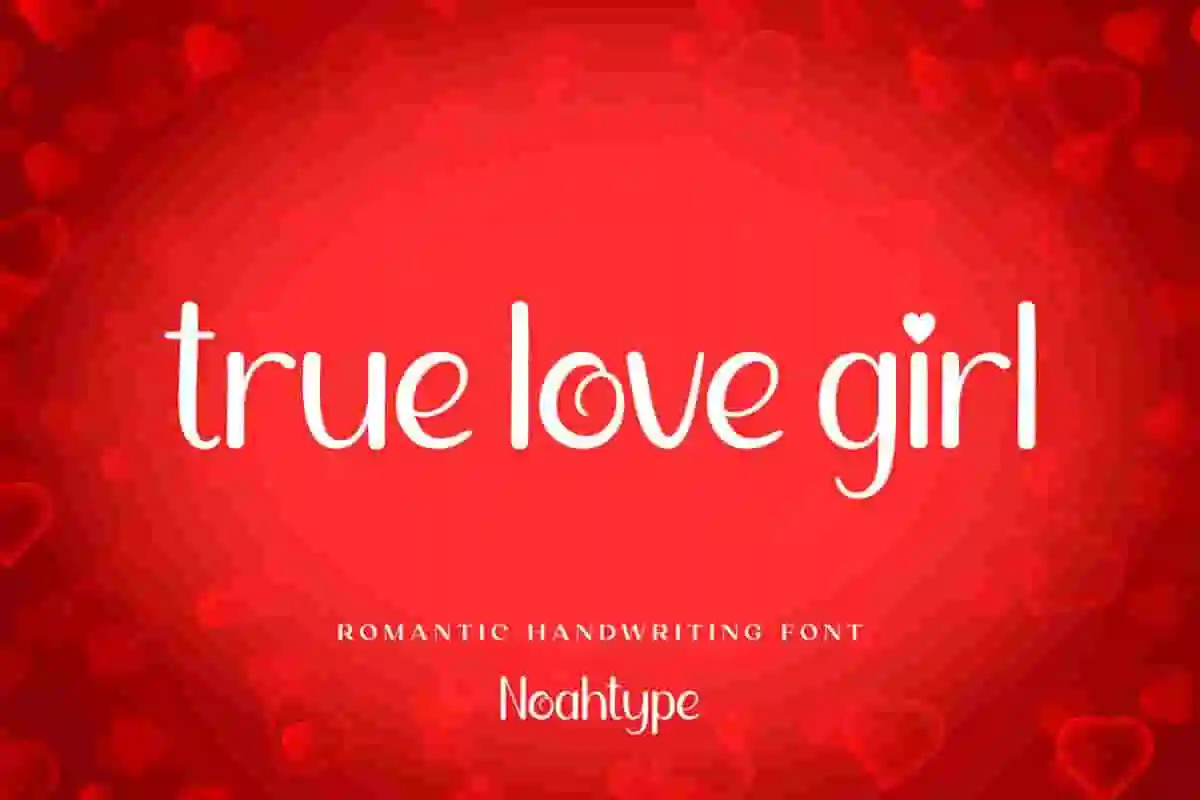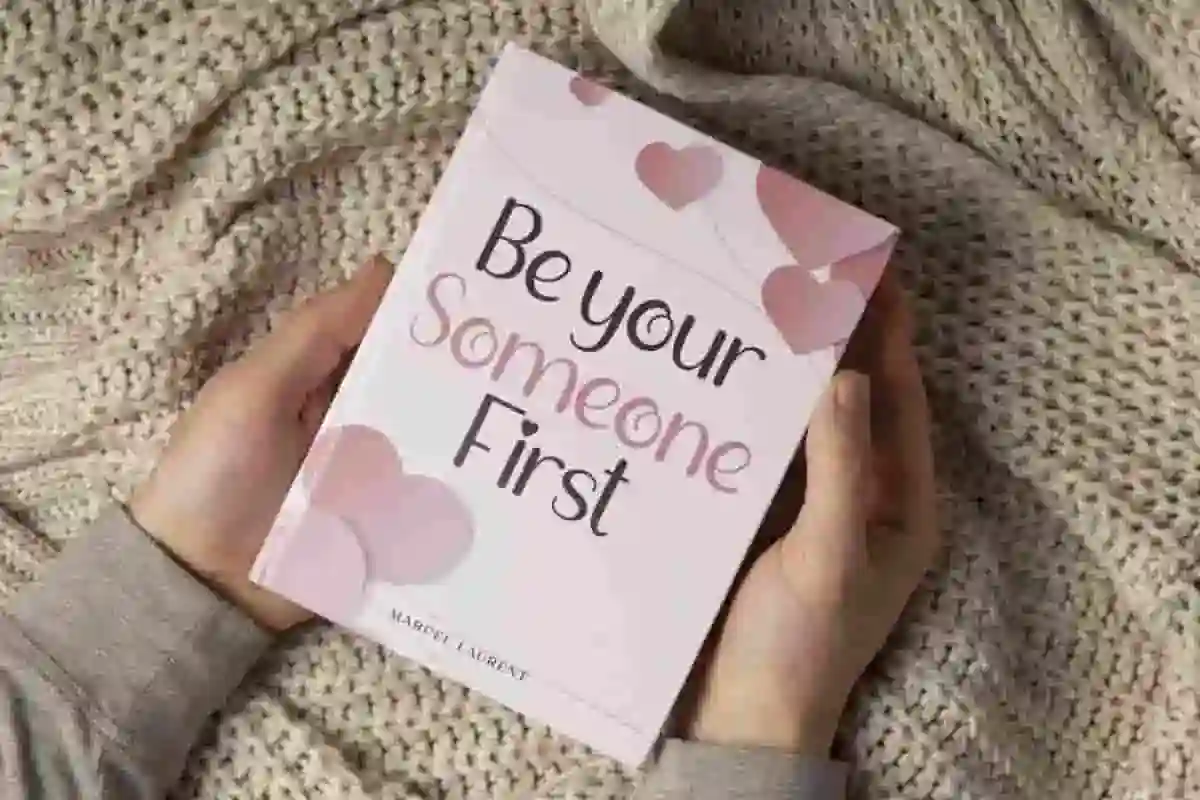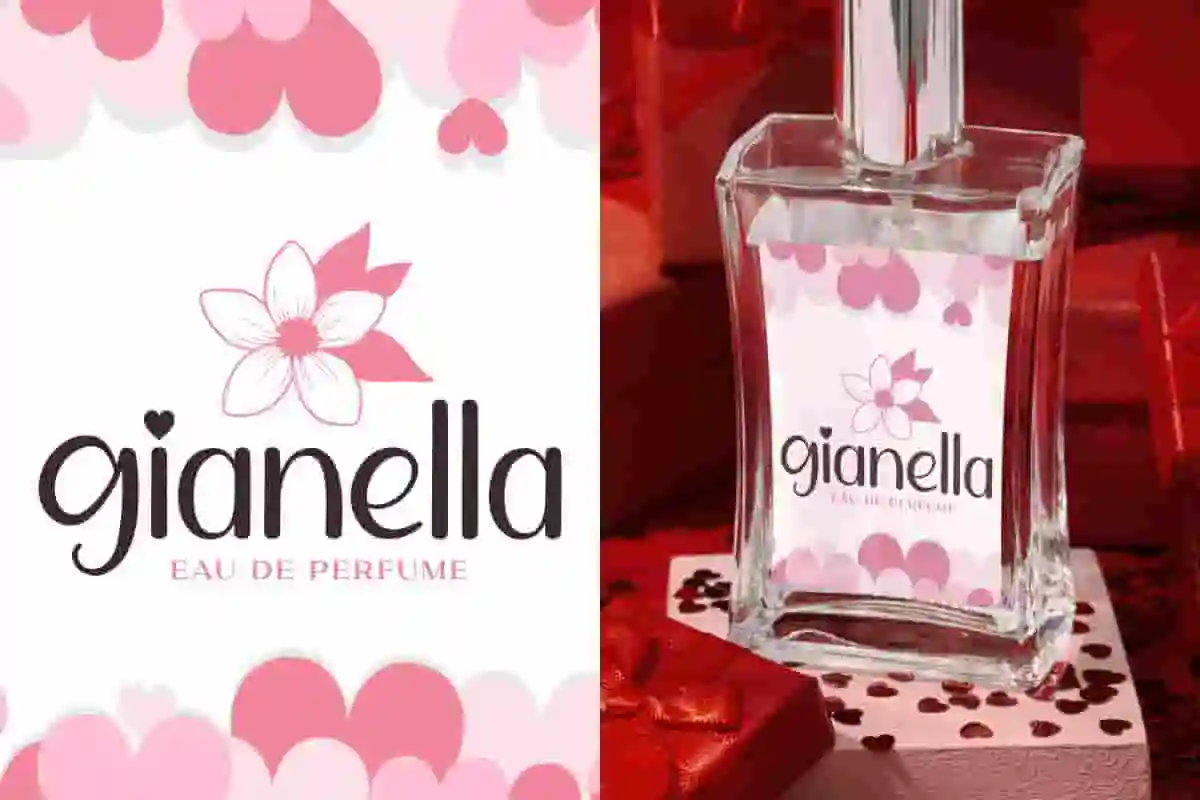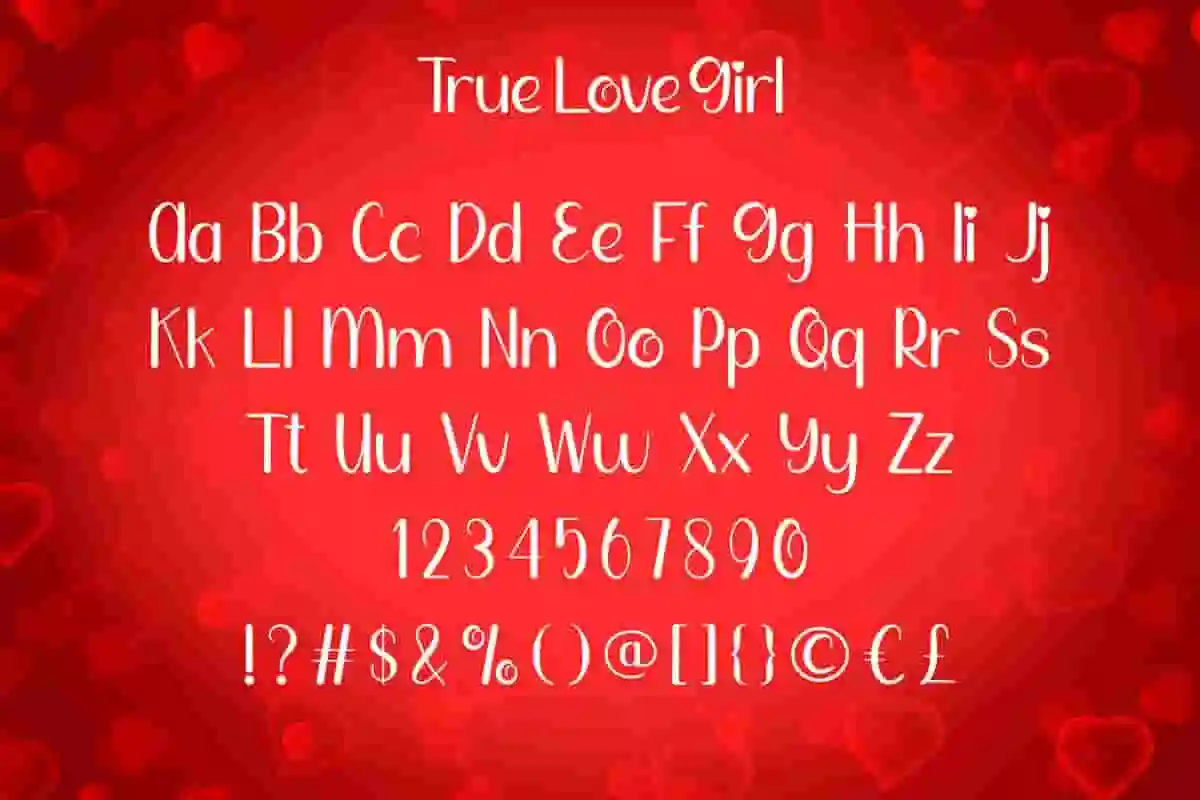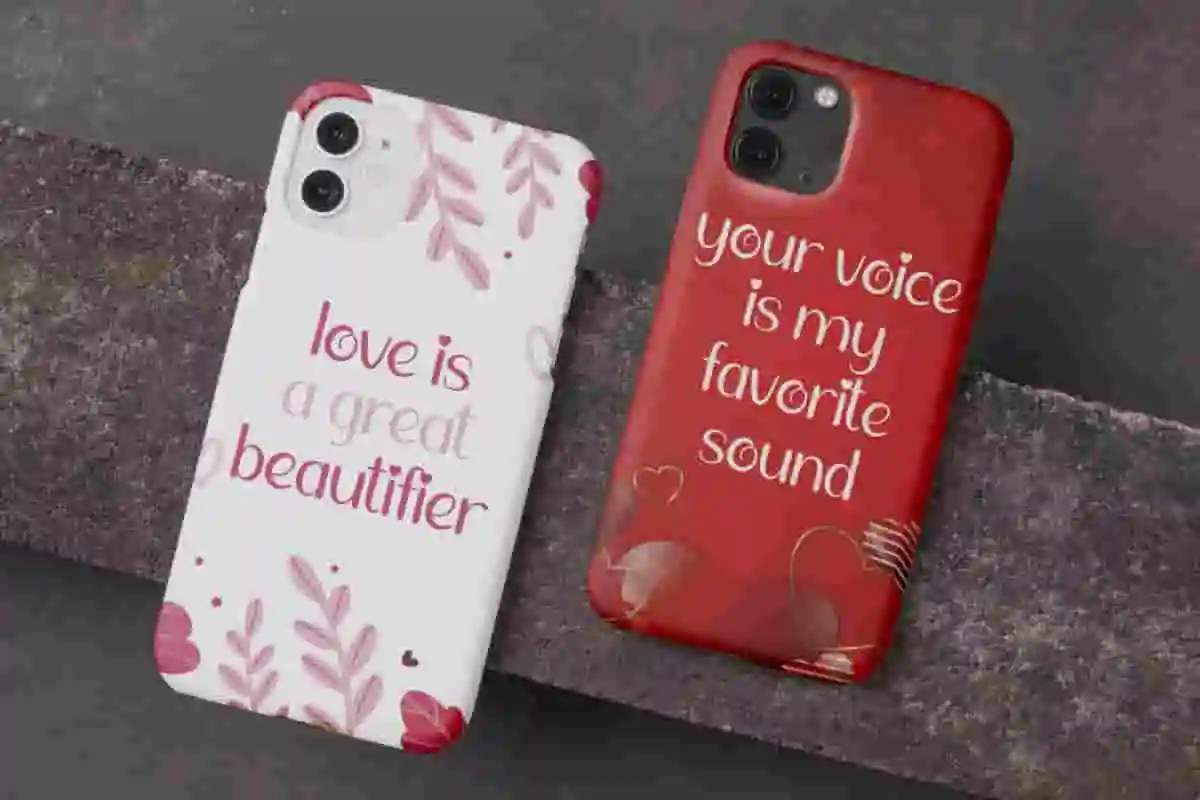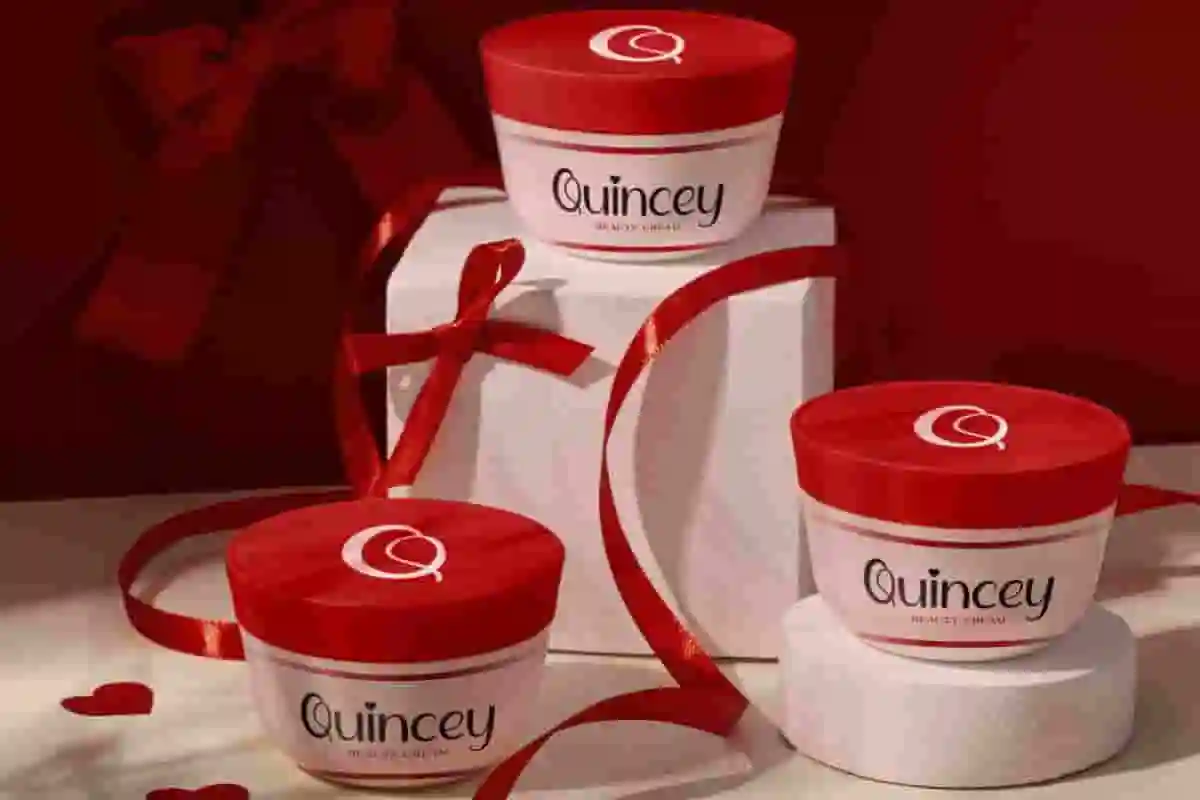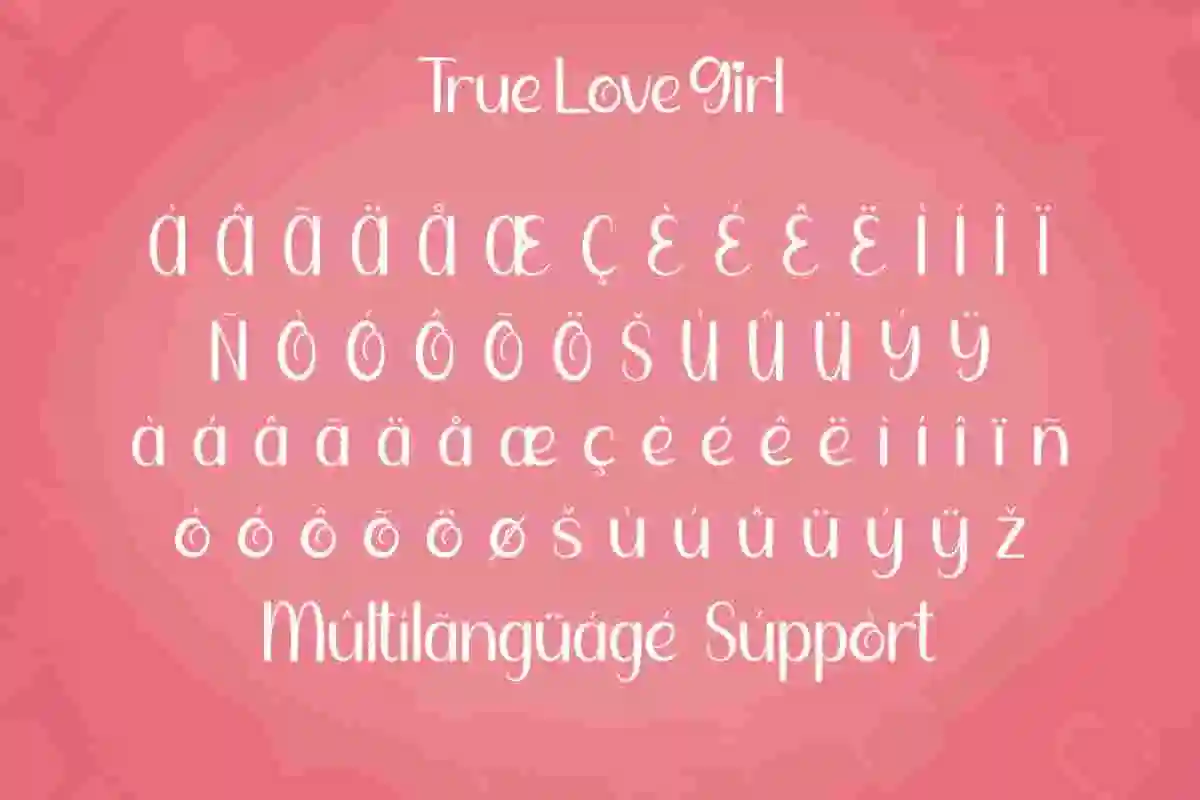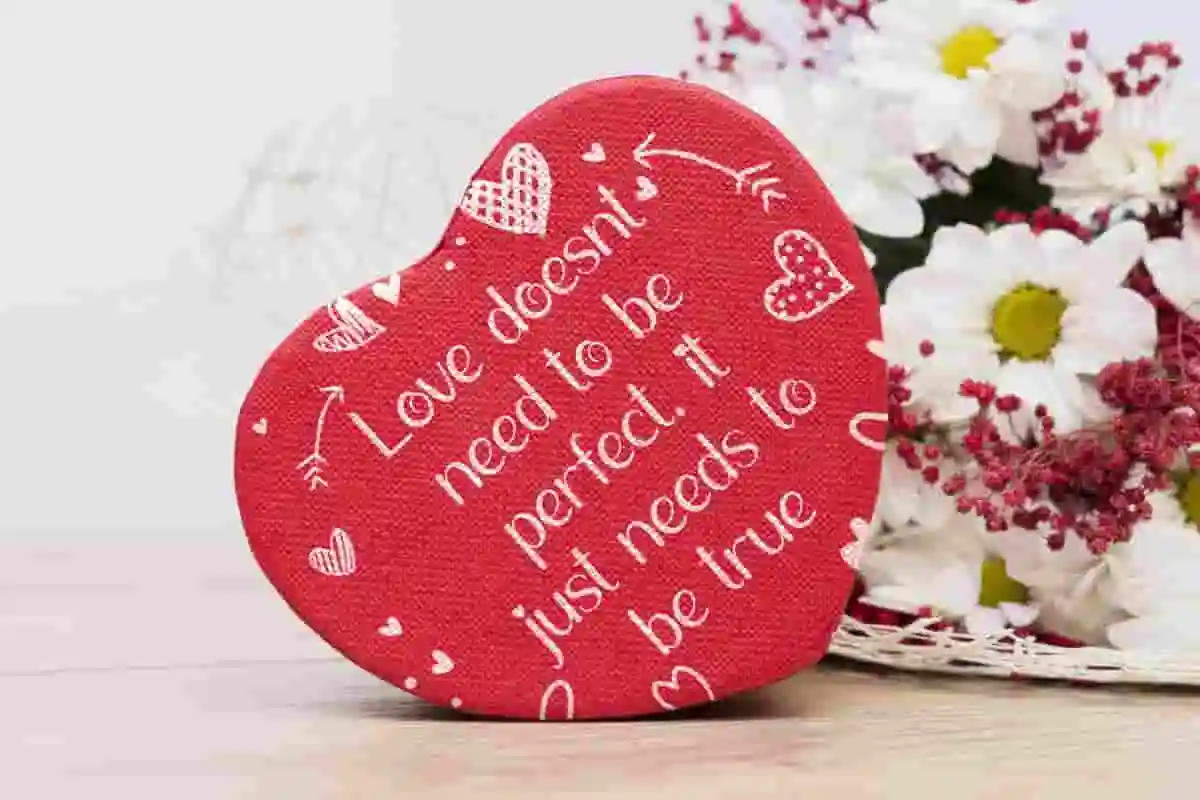
True Love Girl Font is a casual handwriting font with romantic girly theme. This font uses a heart character instead of a dot so that it gives a romantic impression to every design you make. It will be suitable for author and writer, publishing, printing, custom design, fashion accessories, cosmetic, craft, homeware, spa, wedding or event organizer, etc.
True Love Girl Font includes full set of Uppercase and Lowercase Basic Characters, Numerals and Punctuation. This font will be a good choice for those of you who want to express romantic feelings. Use this font to enhance your designs such as greeting card, invitation, product packaging, brochure, poster, brand logo, label, quote, web page, and more!
Perfect for wedding invitations, save-the-date cards, greeting cards, love letters, quotes, logos, and social media posts, this font is designed to make your words feel personal and full of emotion. Each character is carefully created to mimic authentic handwriting, making your designs look warm, intimate, and timeless.